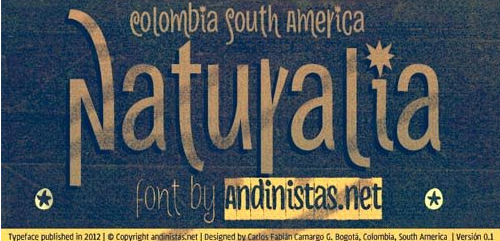
Naturalia font was designed by Carlos Fabián Camargo in 2012 and suggests an ultra-narrow, spontaneous and winding handwriting lettering, it is great for composing short and striking sentences. His idea behind not only alludes asymmetrical shapes but simple glyphs that compact vertical and tight proportions between lower case and upper case letters. Indeed, lower case letters have ascendant and descendant strokes shorter than the “x” height and width is generally condensed, saving horizontal space and supporting monolinear amount of contrast between thick and thin strokes accompanied by their sans serif endings.
Most importantly, its full and empty arrhythmic areas consolidated variety of thicknesses simulating strokes that seem naive letters freehand draw.This lack of homogeneity is very useful for ranking words and phrases in eye-catching graphic design advertising events, culture, fun and entertainment. In that sense, his spontaneity is enhanced by OpenType features, “Swash” and “Titling” with decorated letters that move your baseline up and down as carousel. Finally, typographical and naif fusion holding Naturalia concept generates galloping reading useful for ranking short and folk sentences with calibers: Light, Book, Bold and Black.
Thus, each “Pro” version has 350 glyphs with some features OpenType Swash, titling and Standard Ligatures. Naturalia also works in software without full OpenType functionality, for that it is recommended to use the remaining options. In order to emphasize the degree of hierarchy and as a special and distinctive feature, the variable Naturalia Black was designed with roundness and slight deterioration contours and also coated frames with zigzag edges that give the impression of black paper cutouts with white letters.